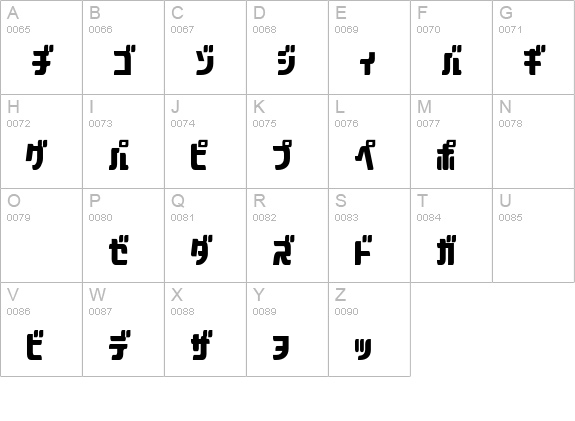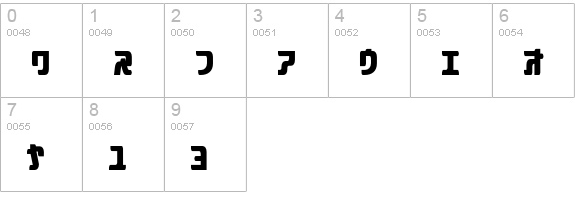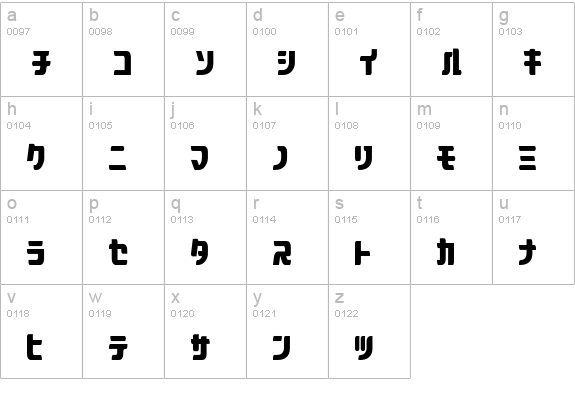
Aquasky20KAT-Regular Font Details
Aquasky20KAT-Regular is the standard, neutral variant in the Aquasky20KAT typeface family \xE2\x80\x94 well suited to general body text, paragraphs, and standard typographic work.
Aquasky20KAT-Regular is a modern and sleek font that exudes sophistication and elegance. With its clean lines and contemporary style, this font is perfect for a wide range of design projects, from branding to marketing materials. Its versatility makes it suitable for both digital and print applications, making it a go-to choice for designers looking for a font that can adapt to various design needs. What sets Aquasky20KAT-Regular apart is its unique blend of classic elegance and modern flair. The font is easy to read yet has a distinct personality that sets it apart from other fonts. Whether you're designing a website, creating a logo, or working on a print advertisement, Aquasky20KAT-Regular will add a touch of sophistication to your project. Best of all, Aquasky20KAT-Regular is freely available to download at FontsMarket.com. This means you can start using this stunning font in your projects without any cost or restrictions. Don't miss out on the opportunity to elevate your designs with Aquasky20KAT-Regular - download it today and see the difference it can make in your work!